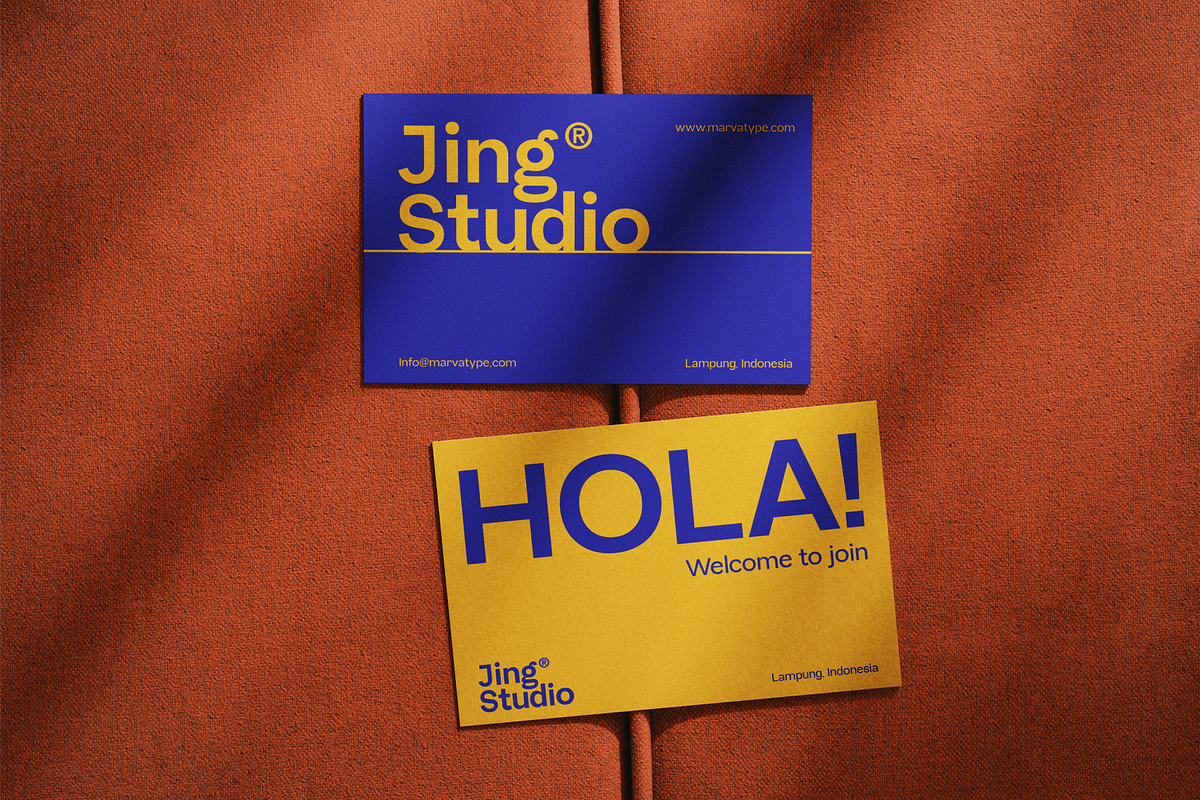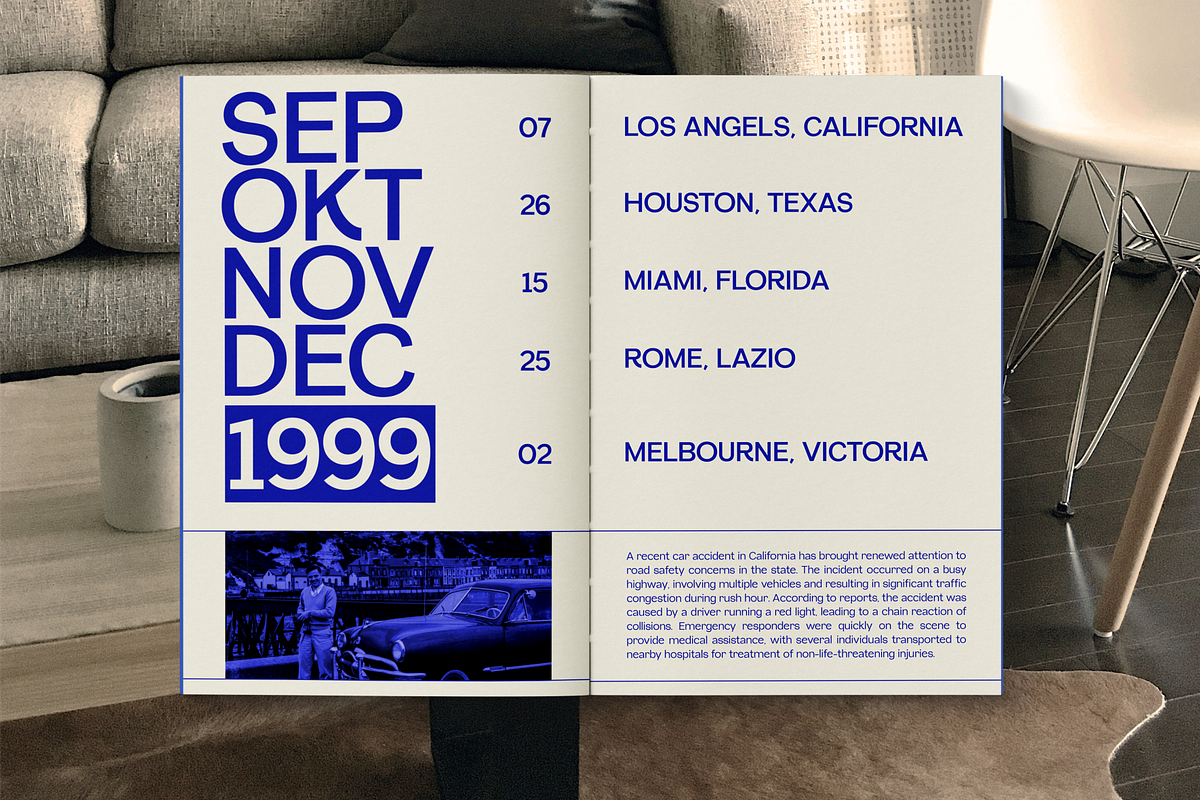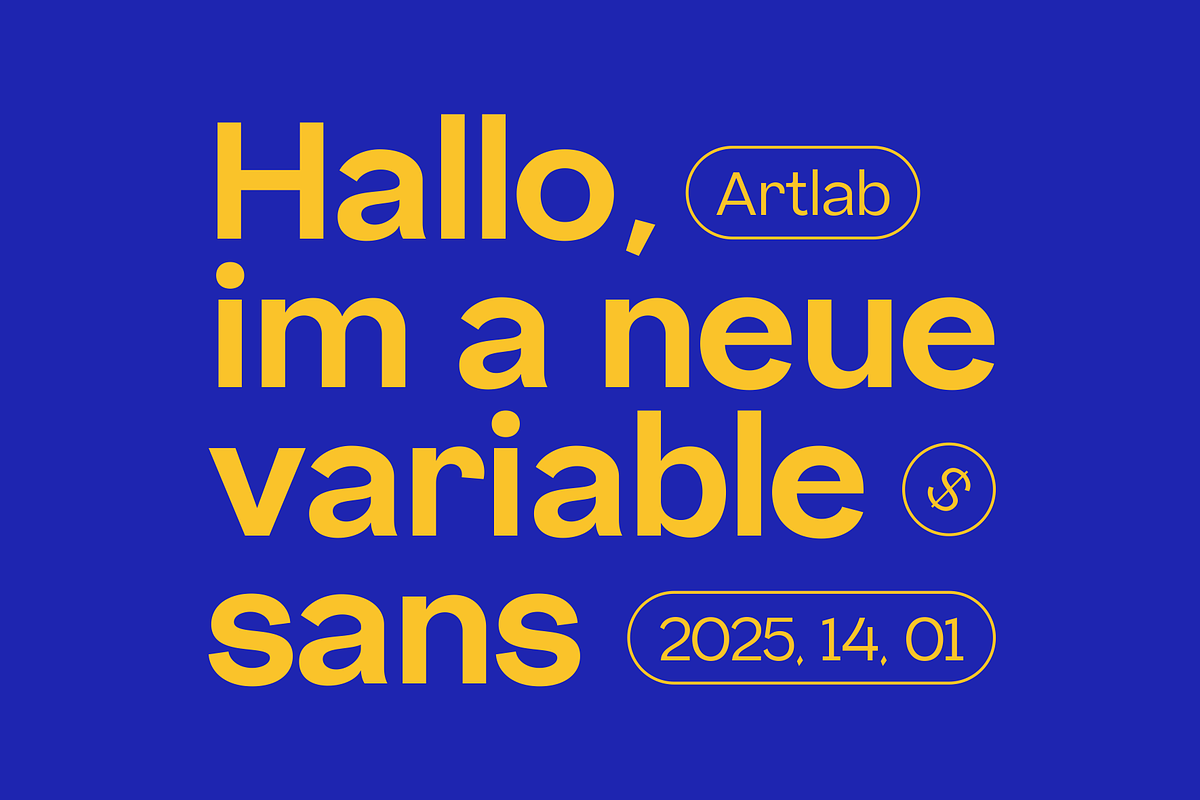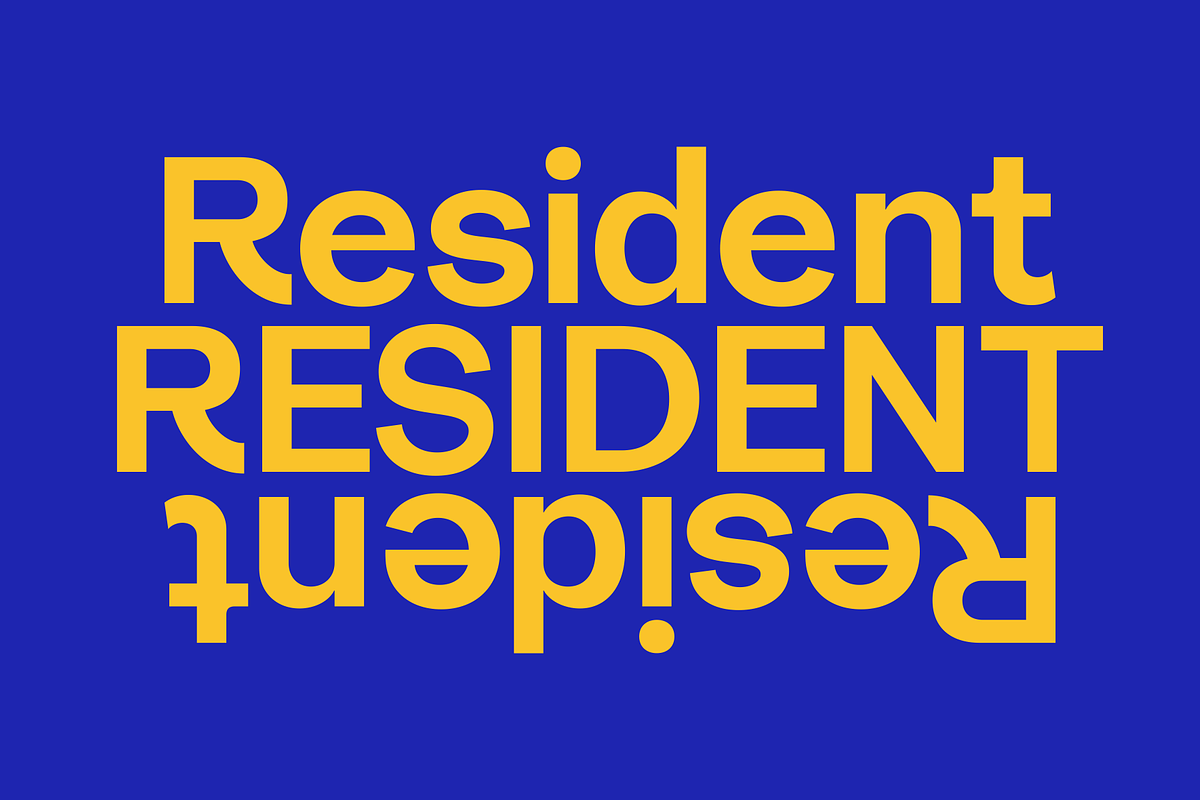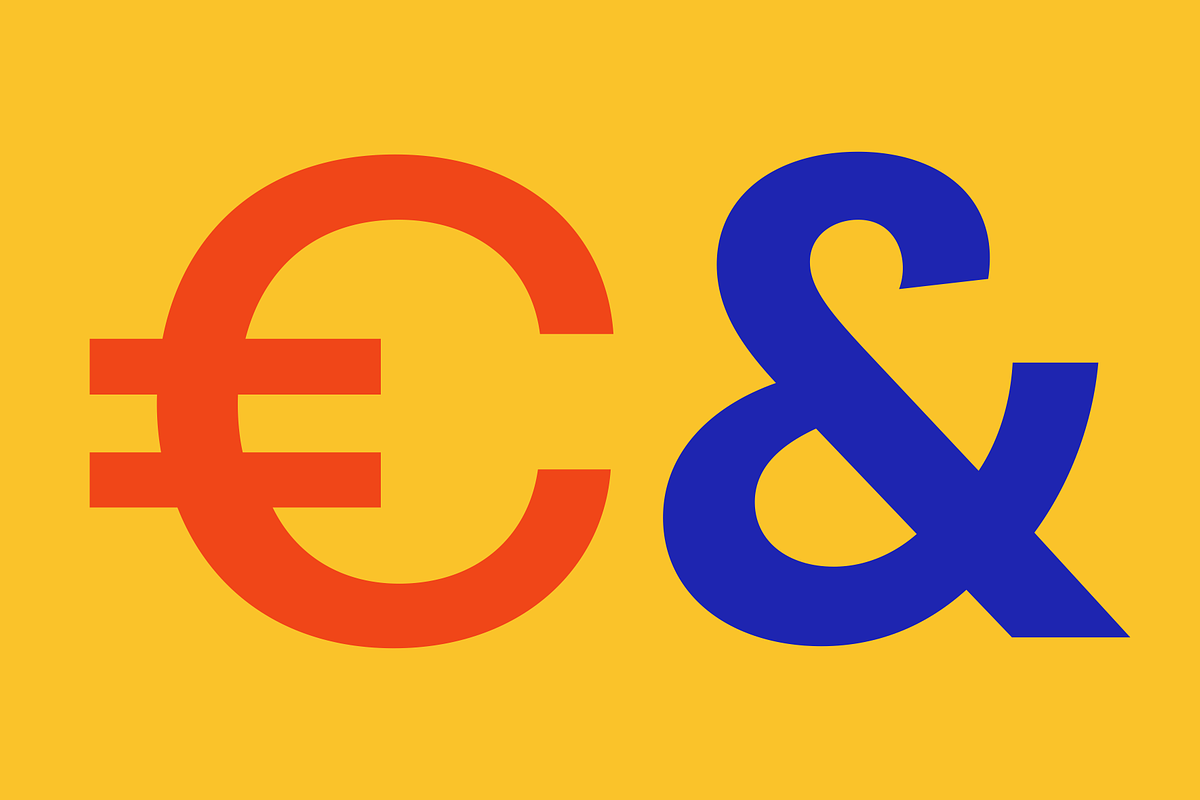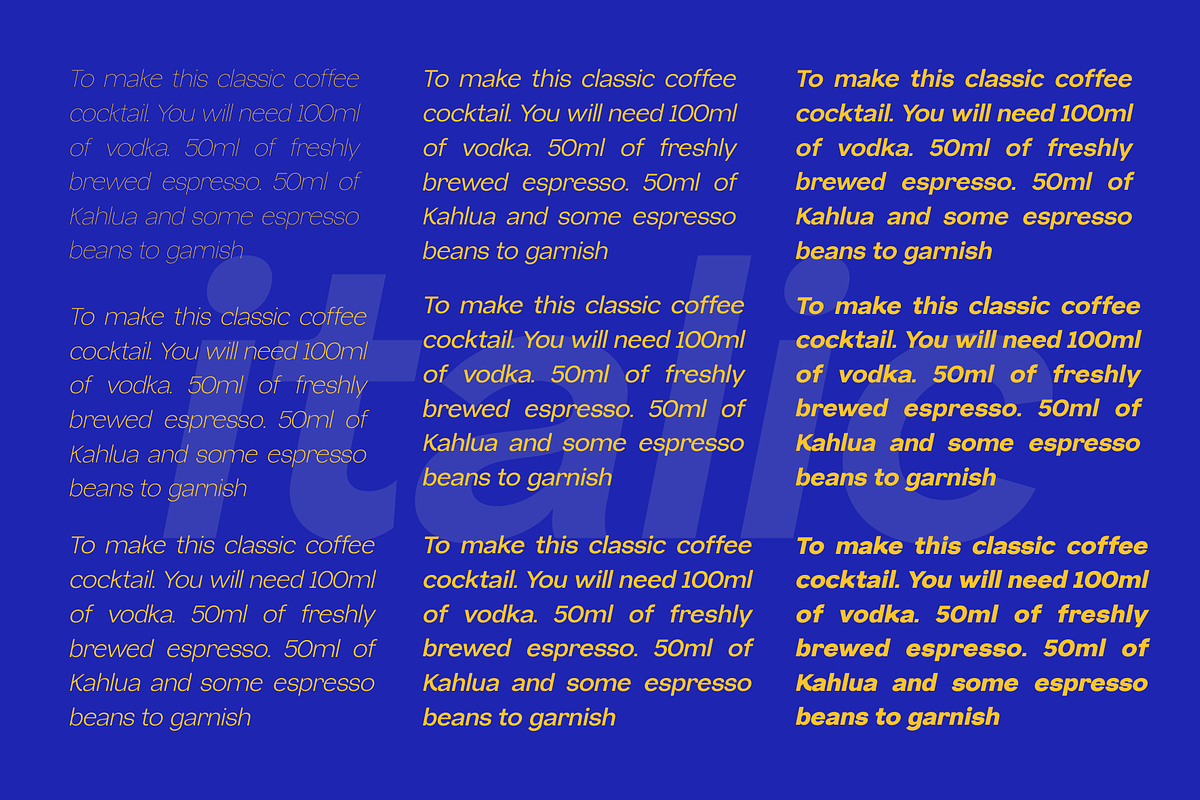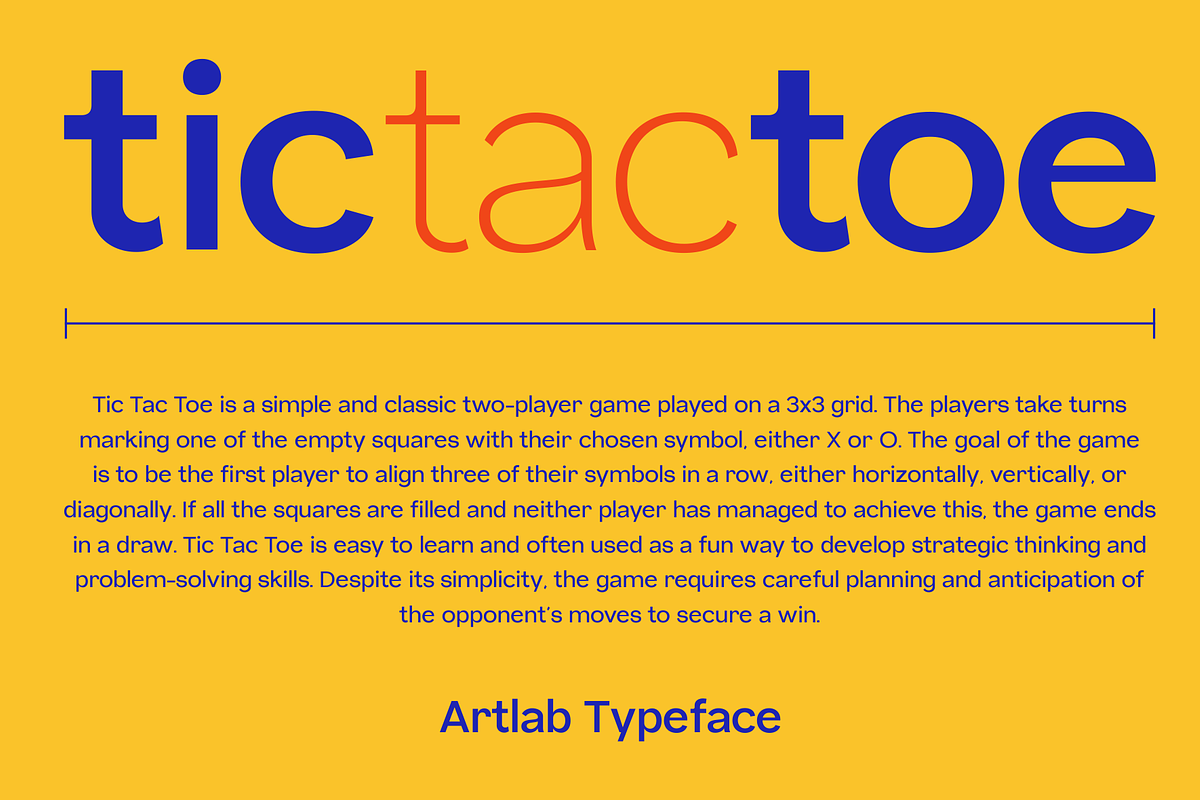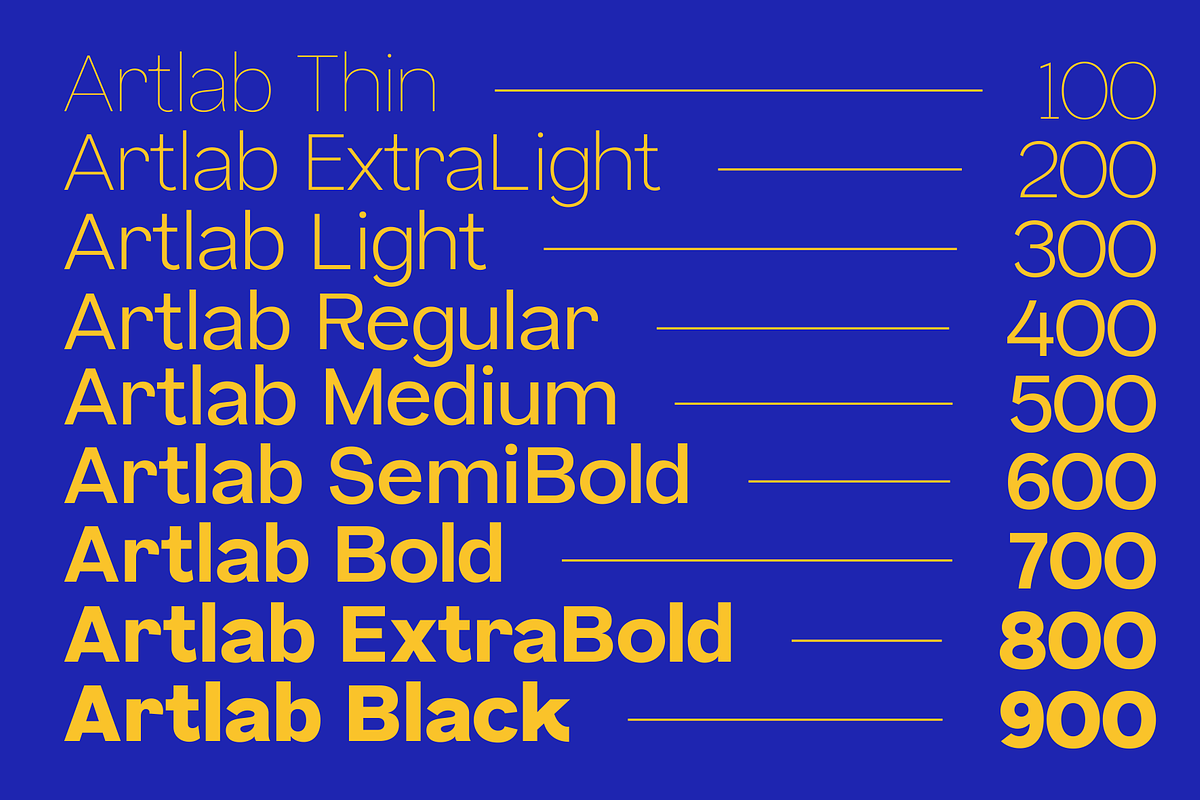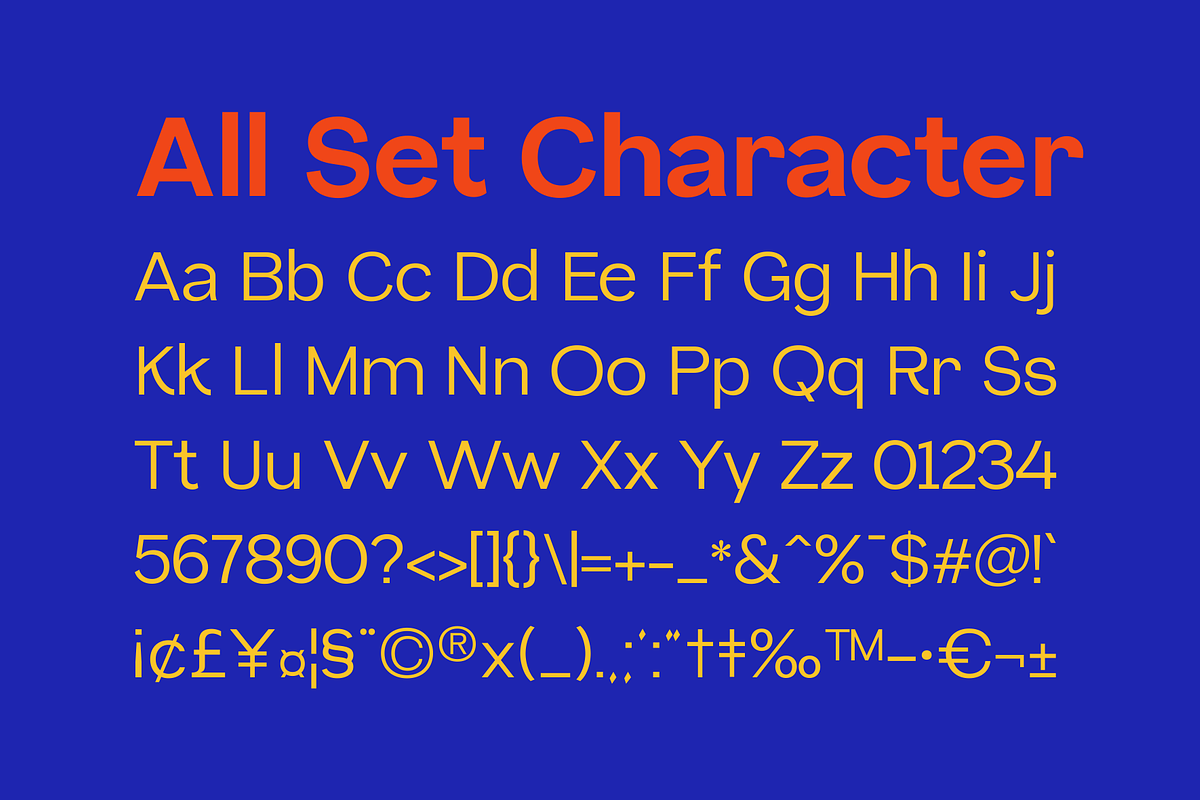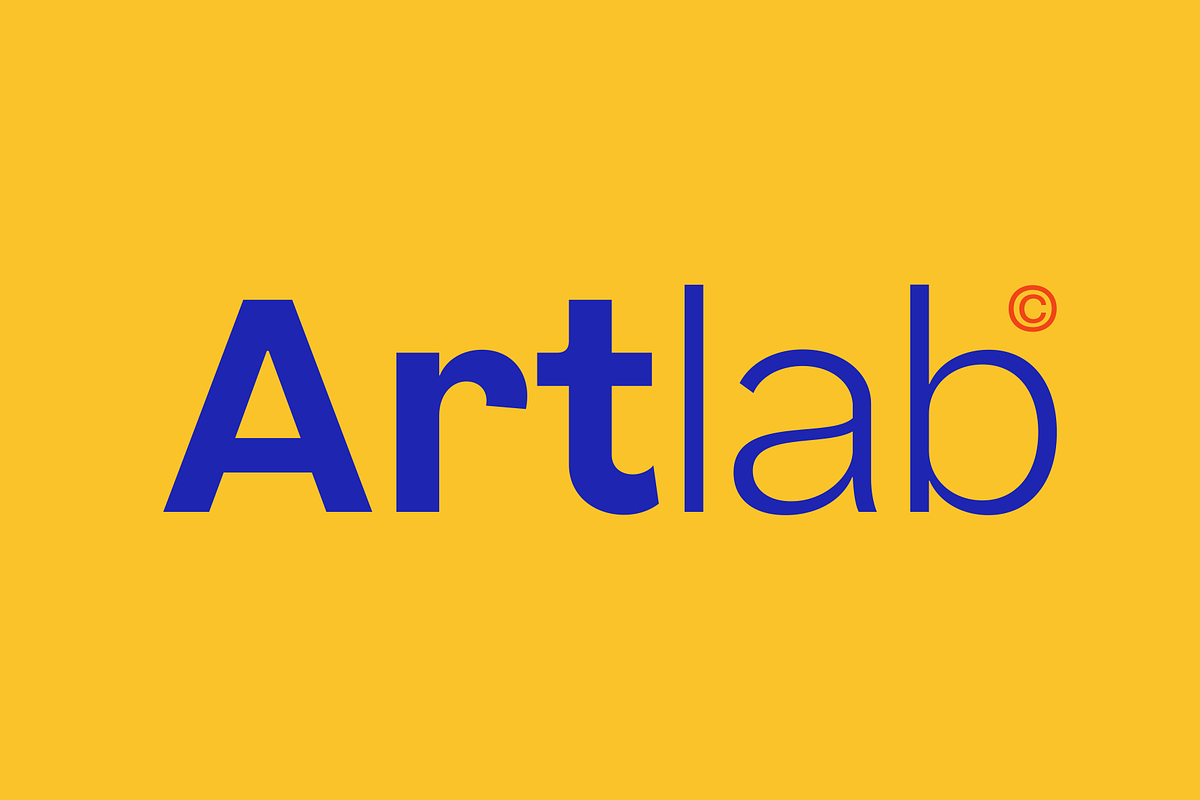
Artlab - Variable Sans Serif
Introducing New Brand Typeface Artlab is a modern variable sans-serif typeface known for its clean and visually appealing design. It offers a versatile range of 18 styles, making it suitable for a variety of design applications.
The styles include
- Thin
- Thin Italic
- ExtraLight
- ExtraLight Italic
- Light
- Light Italic
- Regular Italic
- Medium
- Medium Italic
- SemiBold
- SemiBold Italic
- Bold
- Bold Italic
- Black
- Black Italic.
This flexibility allows Artlab to adapt seamlessly to both minimalist and bold design aesthetics, making it an excellent choice for branding, editorial design, or digital interfaces. Its clean structure and readability ensure it remains a professional.